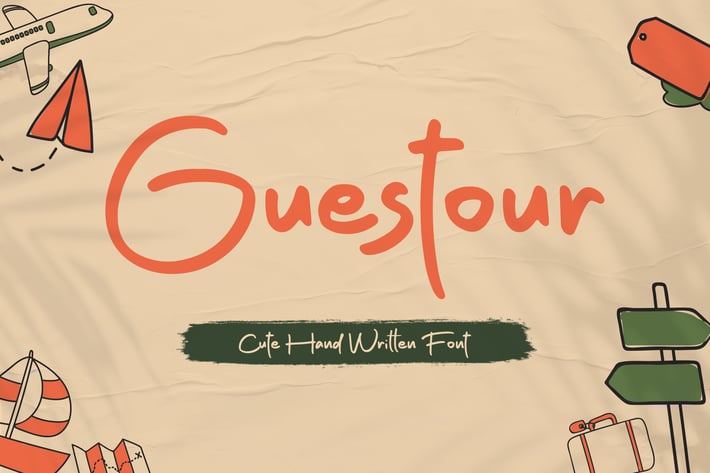
Guestour Travelling Font
Guestour is an all round lettered and unique display font. Not too thin and not too thick, balanced and varied, this font was designed to enhance the beauty of your projects.